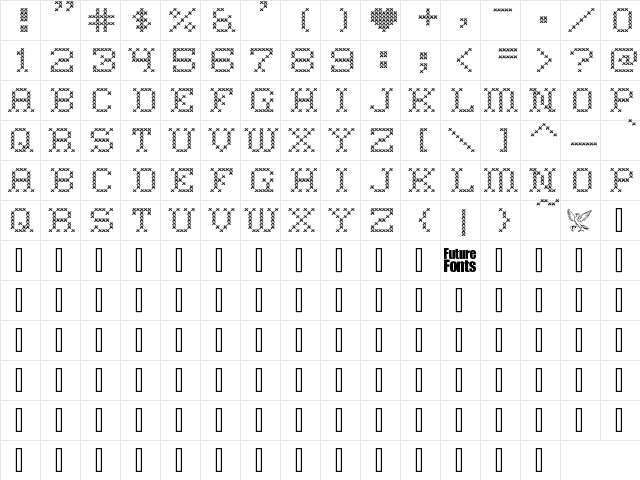
Stiching Regular
Design Context for Stiching Typeface
Stiching is a composed and adaptable typeface that performs quietly and consistently across a wide range of design contexts.